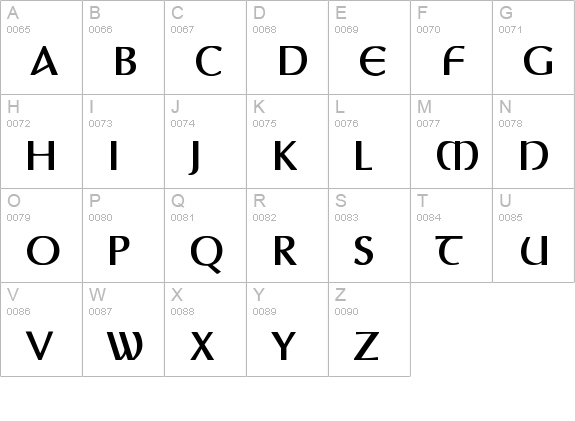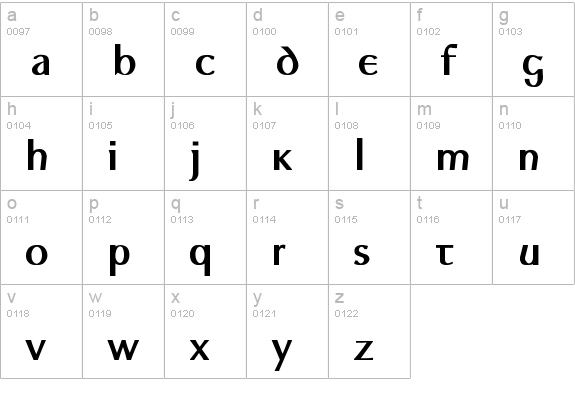
Auptimagh AH Font Details
Auptimagh AH is a stunning and elegant font that exudes sophistication and style. Its intricate details and unique design make it perfect for a wide range of creative projects, from branding to editorial design. With its graceful curves and modern aesthetic, Auptimagh AH is sure to make your text stand out and leave a lasting impression. The best part about Auptimagh AH font is that it is completely free to download at FontsMarket.com. This means that you can easily access this beautiful font and use it in your projects without any cost. Whether you are a professional designer or a hobbyist looking to add a touch of elegance to your work, Auptimagh AH is the perfect choice. Download it today and elevate your designs with this exquisite font.